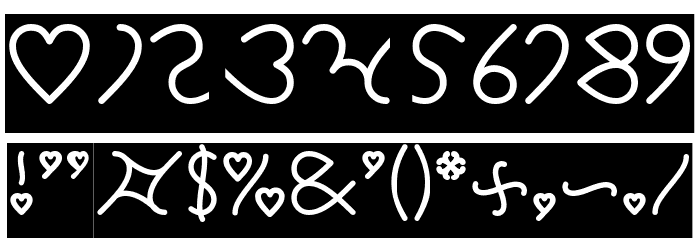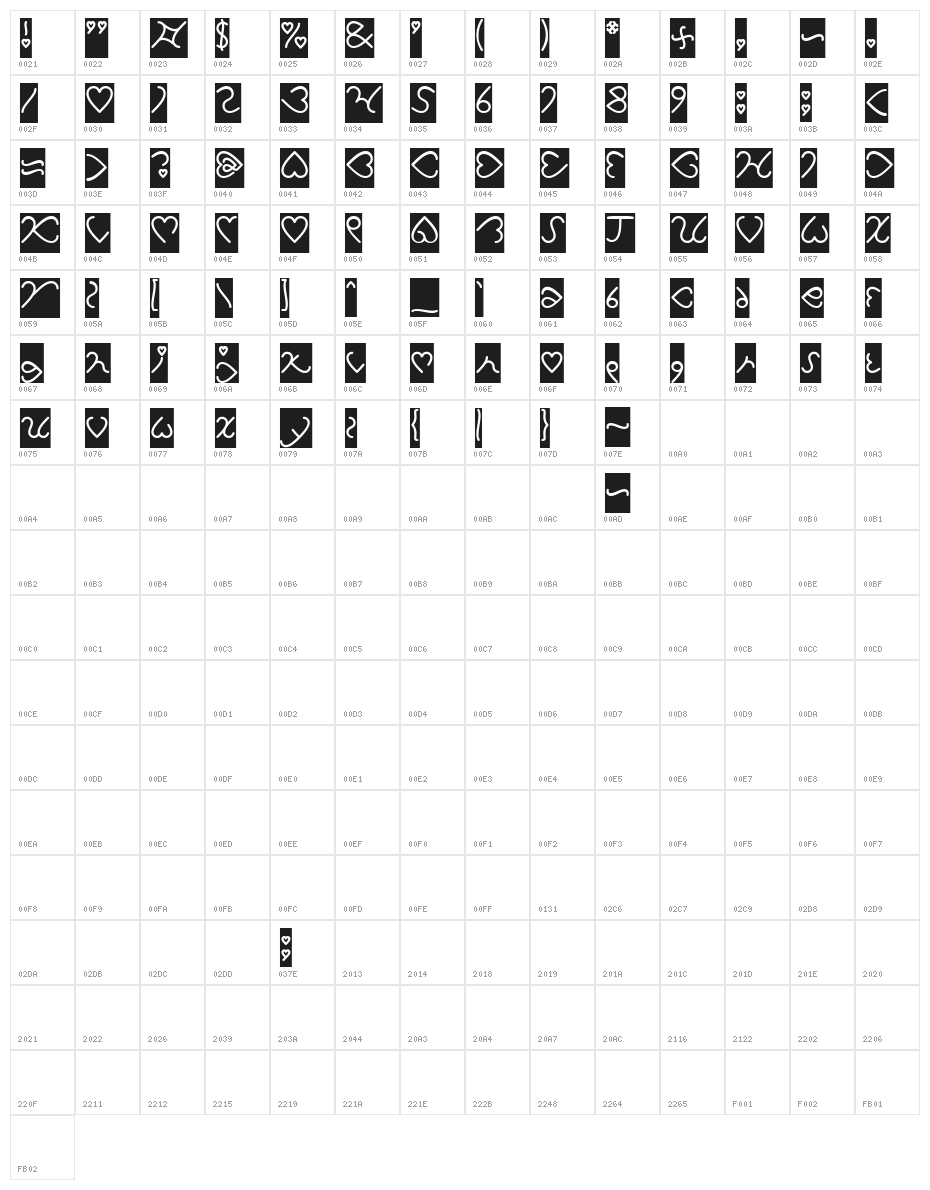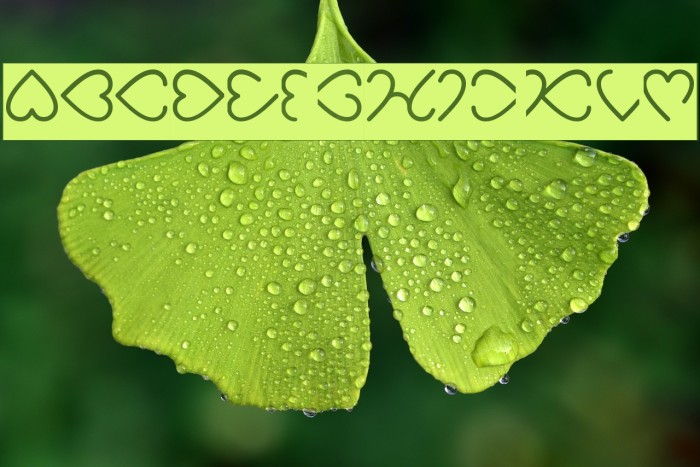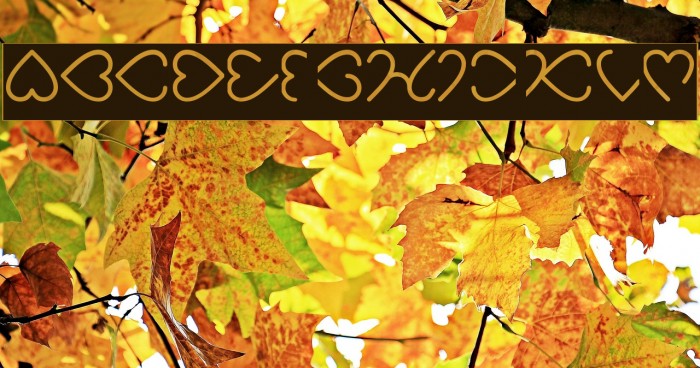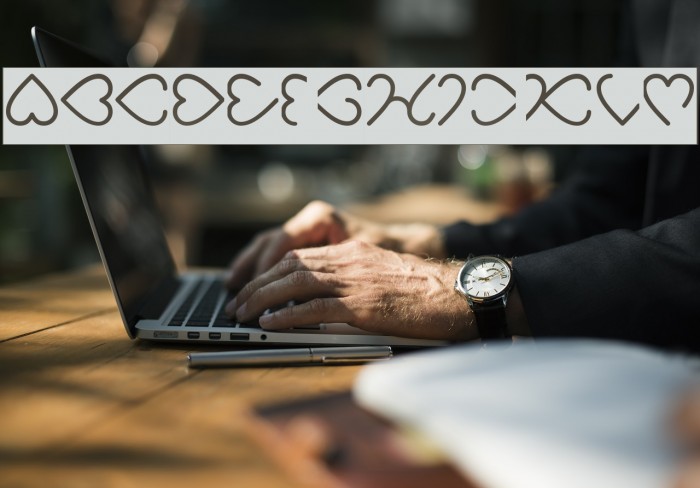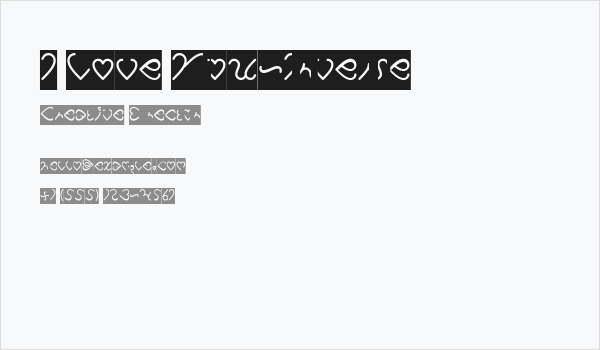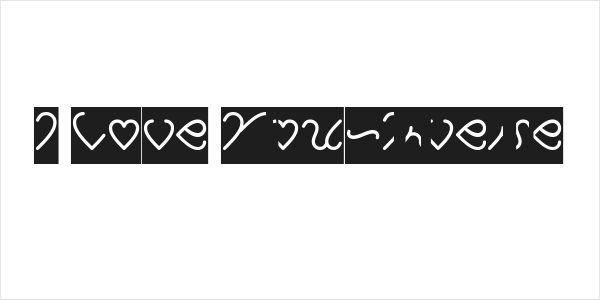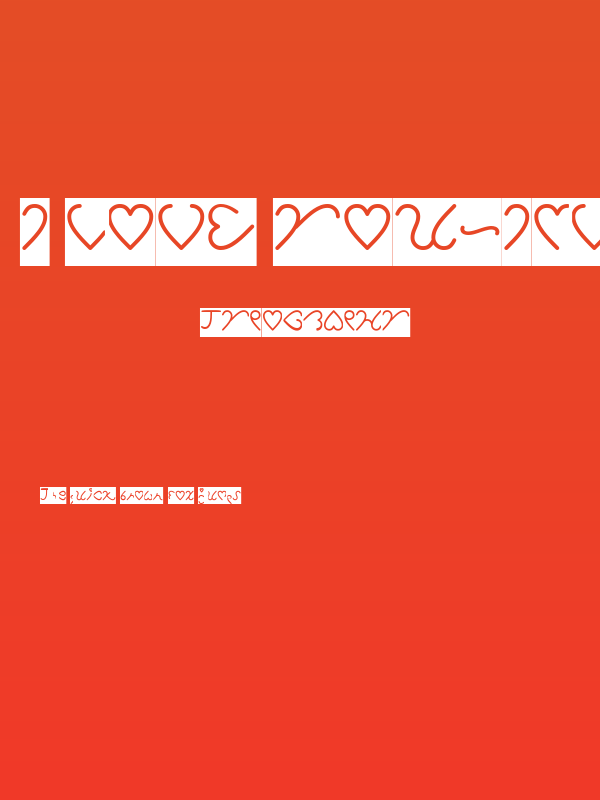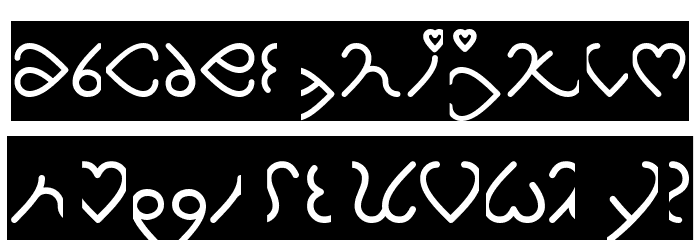
I Love You-Inverse Font
I Love You-Inverse Description
This font features a whimsical and romantic design, incorporating heart shapes into the structure of each character. The letters are crafted with smooth, flowing lines that create a playful and affectionate aesthetic. The uppercase and lowercase letters maintain a consistent style, with each character uniquely integrating heart motifs. Numbers and special characters follow the same design principles, ensuring a cohesive look across all elements. This font is ideal for projects that aim to convey love, warmth, and creativity, making it perfect for Valentine's Day cards, wedding invitations, or any design that requires a touch of romance.
Use CaseHeadlines, Logos, Invitations
Proposed ProjectsIdeal for Valentine's Day cards, wedding invitations, love-themed posters, and playful branding projects.